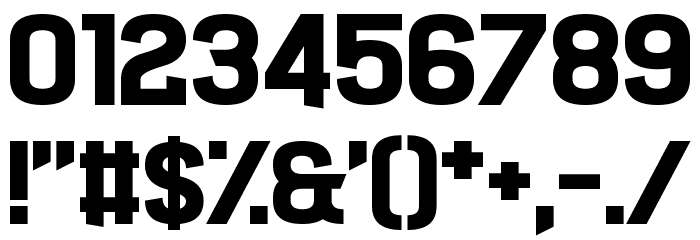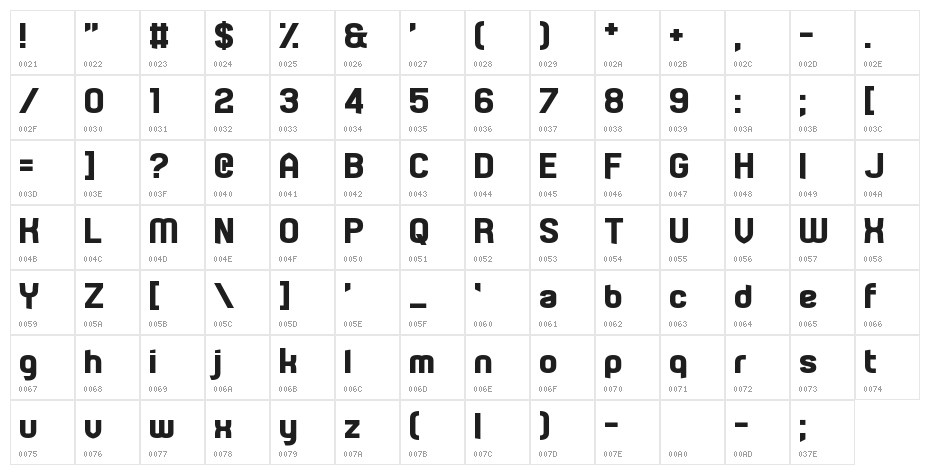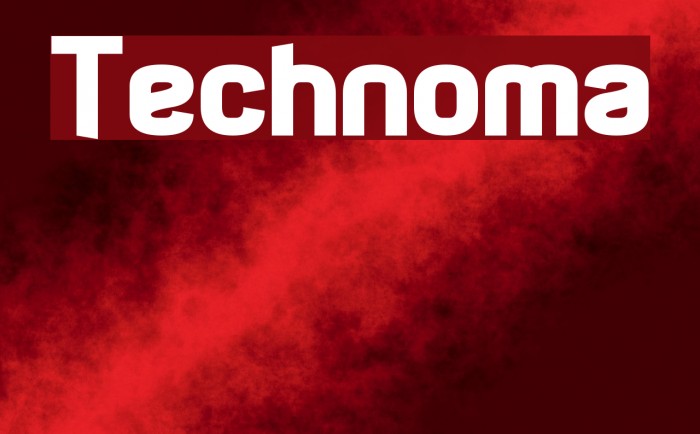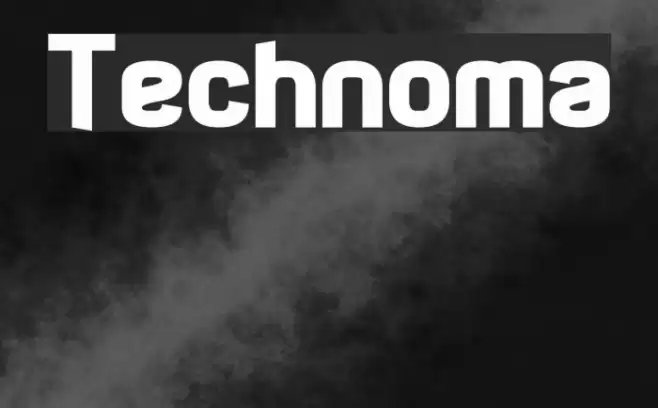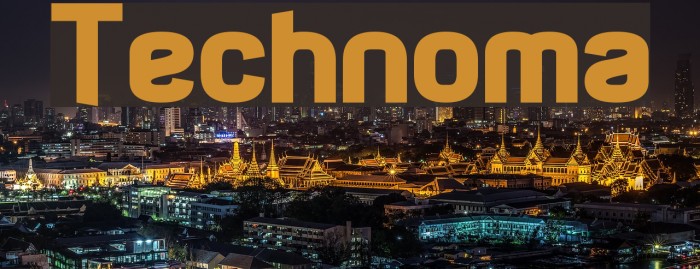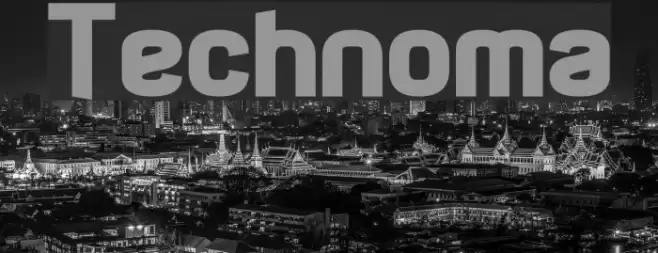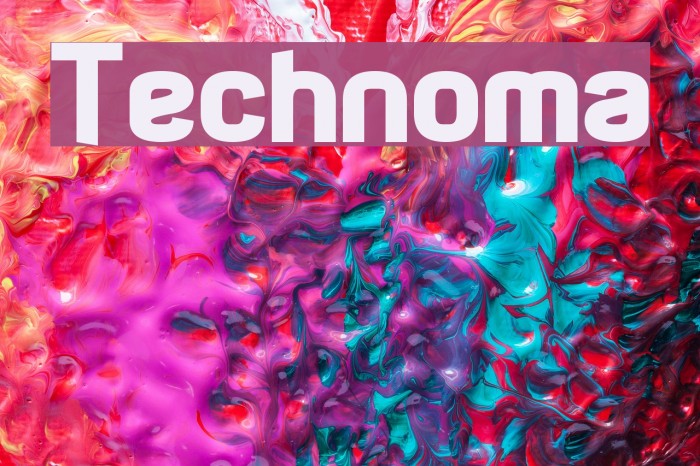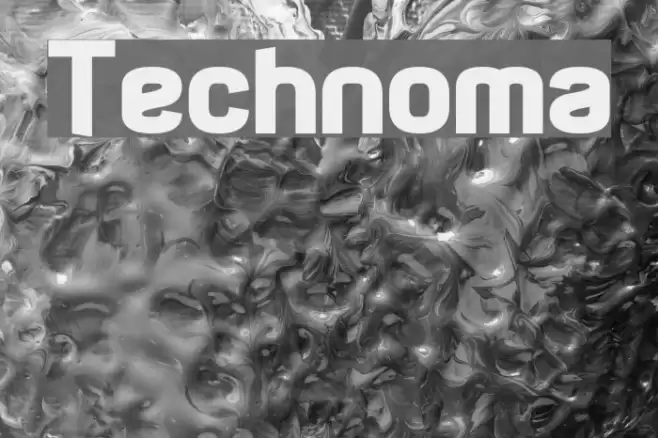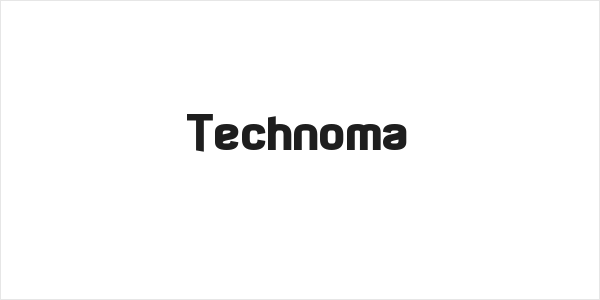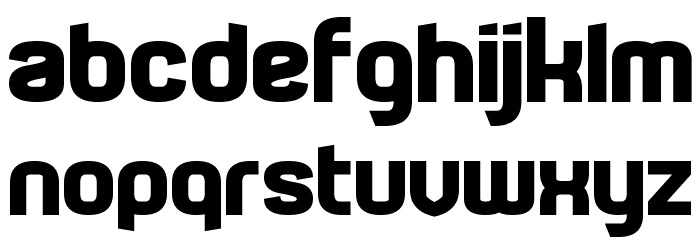
Technoma Font
Technoma Description
This font features a bold and modern design with a strong geometric influence. The characters are wide and have a uniform stroke width, giving them a robust and impactful appearance. The uppercase letters are particularly striking, with angular edges and a slightly condensed form that enhances their presence. The lowercase letters maintain the same geometric style, providing a cohesive look across all text. The numerals are clear and legible, making them suitable for various applications. Special characters are included, maintaining the same bold and modern aesthetic.